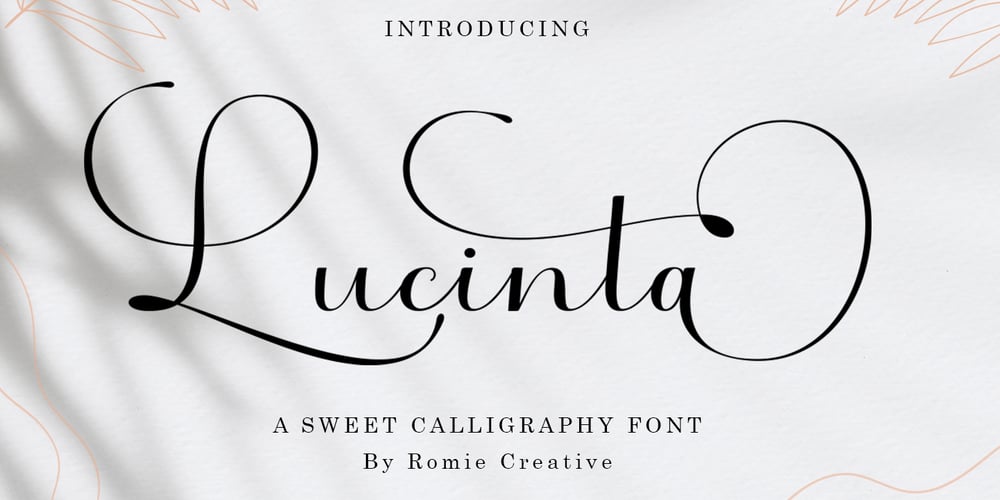
Lucinta Font Family was designed by Romi Rahmadi and published by Romie Creative. Lucinta contains 1 styles and family package options. Introducing the latest styles Lucinta Script, A sweet calligraphy font, casual and dynamic with a dancing baseline, This font can be used easily and simply, perfect for Branding, Logos, Greeting Cards, Wedding Stationery, Quotes etc.It comes with a handy set of Opentype Stylistic Alternates, Ligatures and multiple language support. To enable the OpenType Stylistic alternates, you need a program that supports OpenType features such as Adobe Illustrator CS, Adobe Indesign & CorelDraw X6-X7, Microsoft Word 2010 or later versions.